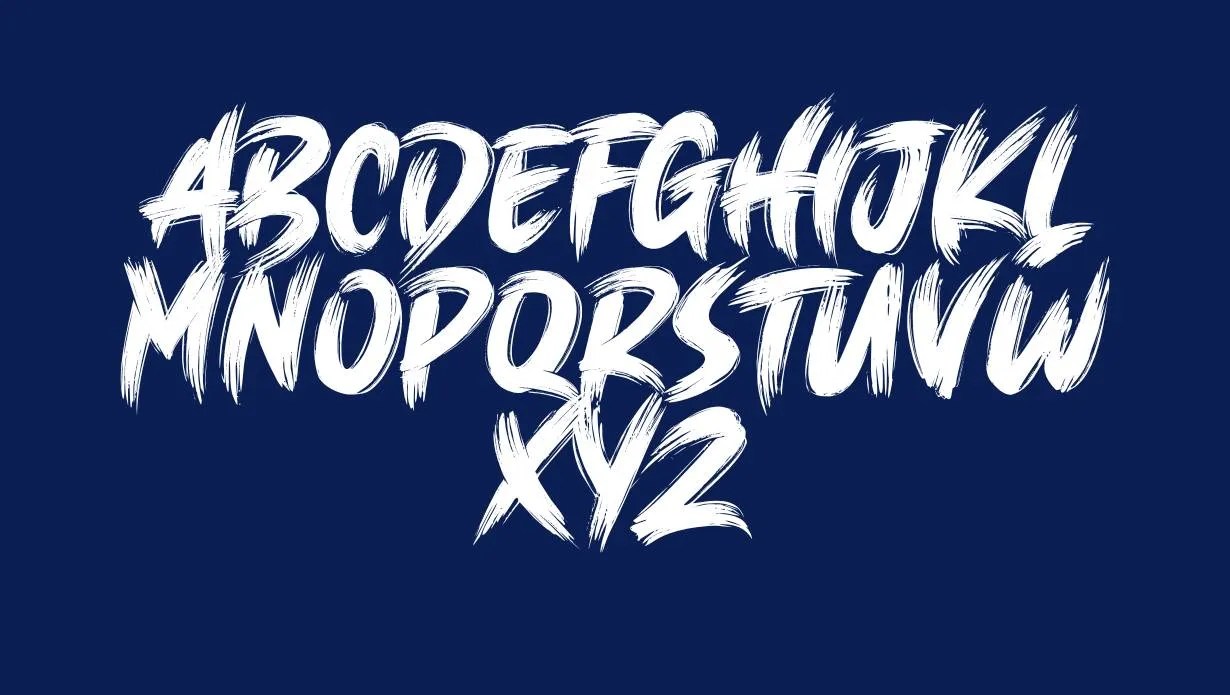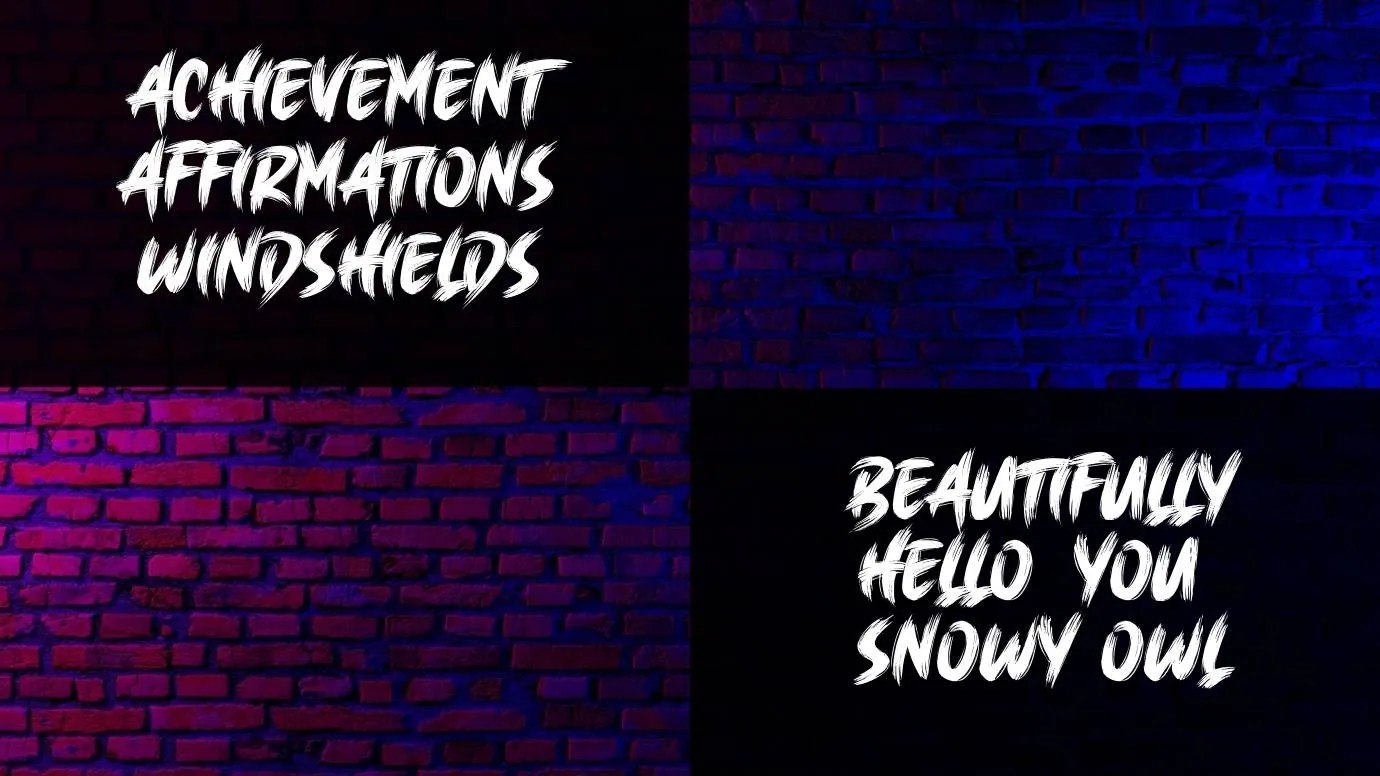
Brush King Brush Font Free Download . Brush king is a font style that combines hand painted and brush effects, ideal for logos, apparel, quotes, and more. Download brush king font · free for personal use · this is font free for personal use if you need for commercial use, you can buy the. A script font in a dry marker with speed and intimate touch. Free download of brush king font. Click now to create a custom image with your own words that you can. 440,170 downloads (135 yesterday) 1 comment free for personal use. Download it for free for personal use and see examples of its. Great for logo and other branding projects, art. Free download of brushking font.
Free download of brush king font. A script font in a dry marker with speed and intimate touch. Download brush king font · free for personal use · this is font free for personal use if you need for commercial use, you can buy the. Free download of brushking font. Great for logo and other branding projects, art. 440,170 downloads (135 yesterday) 1 comment free for personal use. Download it for free for personal use and see examples of its. Brush king is a font style that combines hand painted and brush effects, ideal for logos, apparel, quotes, and more. Click now to create a custom image with your own words that you can.
Brush King Brush Font Free Download 440,170 downloads (135 yesterday) 1 comment free for personal use. Free download of brushking font. Free download of brush king font. Click now to create a custom image with your own words that you can. 440,170 downloads (135 yesterday) 1 comment free for personal use. Brush king is a font style that combines hand painted and brush effects, ideal for logos, apparel, quotes, and more. Download it for free for personal use and see examples of its. Download brush king font · free for personal use · this is font free for personal use if you need for commercial use, you can buy the. Great for logo and other branding projects, art. A script font in a dry marker with speed and intimate touch.
Brush King Font · 1001 Fonts Brush King Brush Font Free Download Free download of brush king font. A script font in a dry marker with speed and intimate touch. 440,170 downloads (135 yesterday) 1 comment free for personal use. Free download of brushking font. Click now to create a custom image with your own words that you can. Brush king is a font style that combines hand painted and brush effects,. Brush King Brush Font Free Download.
BRUSH KING / Brush Font (409425) Regular Font Bundles Brush King Brush Font Free Download Click now to create a custom image with your own words that you can. Free download of brushking font. 440,170 downloads (135 yesterday) 1 comment free for personal use. Download brush king font · free for personal use · this is font free for personal use if you need for commercial use, you can buy the. Free download of brush. Brush King Brush Font Free Download.
25+ HandDrawn, Free Brush Fonts Hipsthetic Brush King Brush Font Free Download brush king font · free for personal use · this is font free for personal use if you need for commercial use, you can buy the. Brush king is a font style that combines hand painted and brush effects, ideal for logos, apparel, quotes, and more. Download it for free for personal use and see examples of its. Click. Brush King Brush Font Free Download.
BRUSH KING / Brush Font (409425) Regular Font Bundles Brush King Brush Font Free Download Free download of brushking font. A script font in a dry marker with speed and intimate touch. Brush king is a font style that combines hand painted and brush effects, ideal for logos, apparel, quotes, and more. Great for logo and other branding projects, art. 440,170 downloads (135 yesterday) 1 comment free for personal use. Download it for free for. Brush King Brush Font Free Download.
Brush King Font Free Download Brush King Brush Font Free Download A script font in a dry marker with speed and intimate touch. Free download of brush king font. Click now to create a custom image with your own words that you can. Brush king is a font style that combines hand painted and brush effects, ideal for logos, apparel, quotes, and more. 440,170 downloads (135 yesterday) 1 comment free for. Brush King Brush Font Free Download.
Brush King Windows font free for Personal Brush King Brush Font Free Download A script font in a dry marker with speed and intimate touch. Great for logo and other branding projects, art. Free download of brush king font. Download brush king font · free for personal use · this is font free for personal use if you need for commercial use, you can buy the. Download it for free for personal use. Brush King Brush Font Free Download.
Brush King Font font & Desktop MyFonts Brush King Brush Font Free Download A script font in a dry marker with speed and intimate touch. Free download of brushking font. Free download of brush king font. Great for logo and other branding projects, art. Download it for free for personal use and see examples of its. Click now to create a custom image with your own words that you can. 440,170 downloads (135. Brush King Brush Font Free Download.
SALE! BRUSH KING / Brush Font MasterBundles Brush King Brush Font Free Download Click now to create a custom image with your own words that you can. Download it for free for personal use and see examples of its. Download brush king font · free for personal use · this is font free for personal use if you need for commercial use, you can buy the. Free download of brushking font. A script. Brush King Brush Font Free Download.
Brush King / Brush Font By Subectype TheHungryJPEG Brush King Brush Font Free Download brush king font · free for personal use · this is font free for personal use if you need for commercial use, you can buy the. Click now to create a custom image with your own words that you can. Free download of brush king font. Download it for free for personal use and see examples of its. 440,170. Brush King Brush Font Free Download.